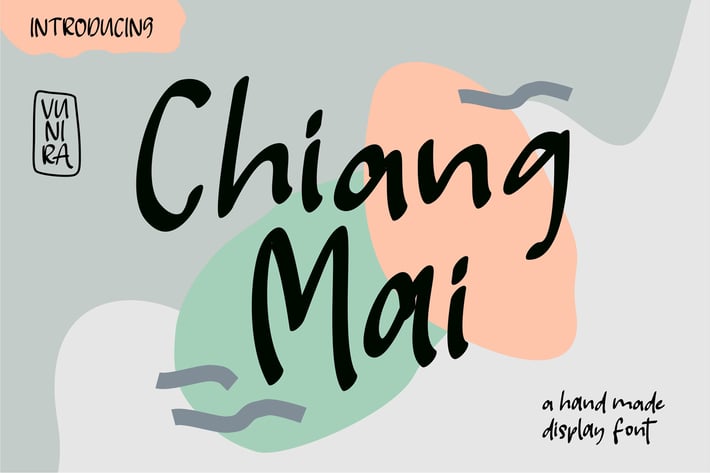
Chiang Mai | A Handmade Display Font
Chiang Mai | A Handmade Display Font with a calligraphy style, So beautiful on invitation like greeting cards, branding materials, business cards, quotes, posters, and more!